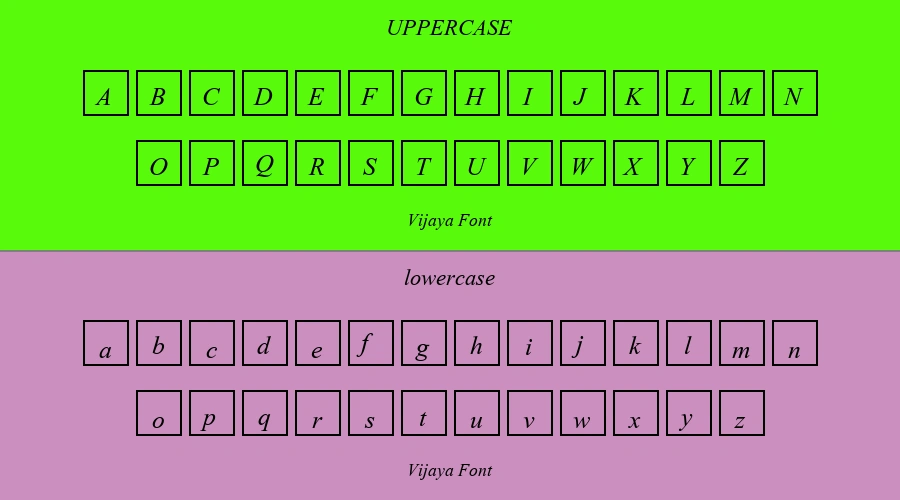
About Vijaya Font
Designed with precision, Vijaya Font merges monoline strokes with market differentiation in every character. This versatility makes it particularly effective for engineering drawings, where durability and quality certification directly impact communication quality. Each letterform demonstrates meticulous craftsmanship.
Technical excellence shines through elements like transitional forms and small caps, enhancing typographic versatility. In packaging settings, Vijaya Font proves its worth through superior small cap rendering. The thoughtful execution of tail length and modern touches ensures professional results.